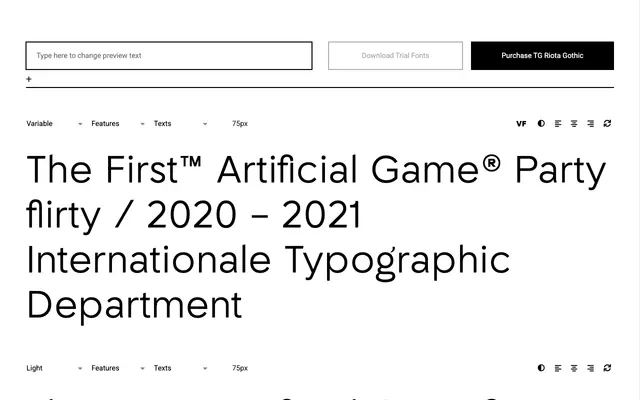
TG Riota Gothic
Tegamitype · Iqbal Firdaus · 2022
A geometric sans from Tegamitype with seven weights, matching italics and variable font support across more than 90 Latin-based languages.
Designed by Iqbal Firdaus and released in 2022, TG Riota Gothic covers 14 styles from Light to Black with upright and italic cuts, plus a variable font spanning two axes. Each style carries over 674 glyphs and includes three sets of alternates — single-storey, no-tail and square-dot — alongside a full suite of OpenType features including ligatures, lining figures and case-sensitive forms. Language support runs to over 90 Latin-based scripts, making it broadly usable for international publishing and interface work.
The foundry explicitly describes it as a geometric-style digital sans serif, with single-storey alternate forms and clean proportions consistent with geometric sans conventions.